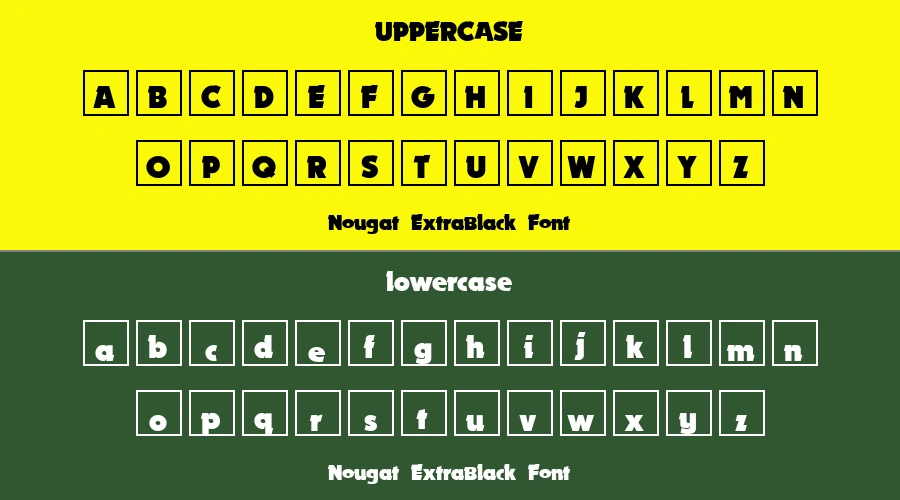
About Nougat ExtraBlack Font
Designed with precision, Nougat ExtraBlack Font merges dramatic weight with versatility in every character. This versatility makes it particularly effective for film titles, where memorability and technical merit directly impact communication quality. Each letterform demonstrates meticulous craftsmanship.
Technical excellence shines through elements like pressure variations and display figures, enhancing typographic versatility. In display applications settings, Nougat ExtraBlack Font proves its worth through superior body text reading. The thoughtful execution of stroke modulation and design lineage ensures professional results.